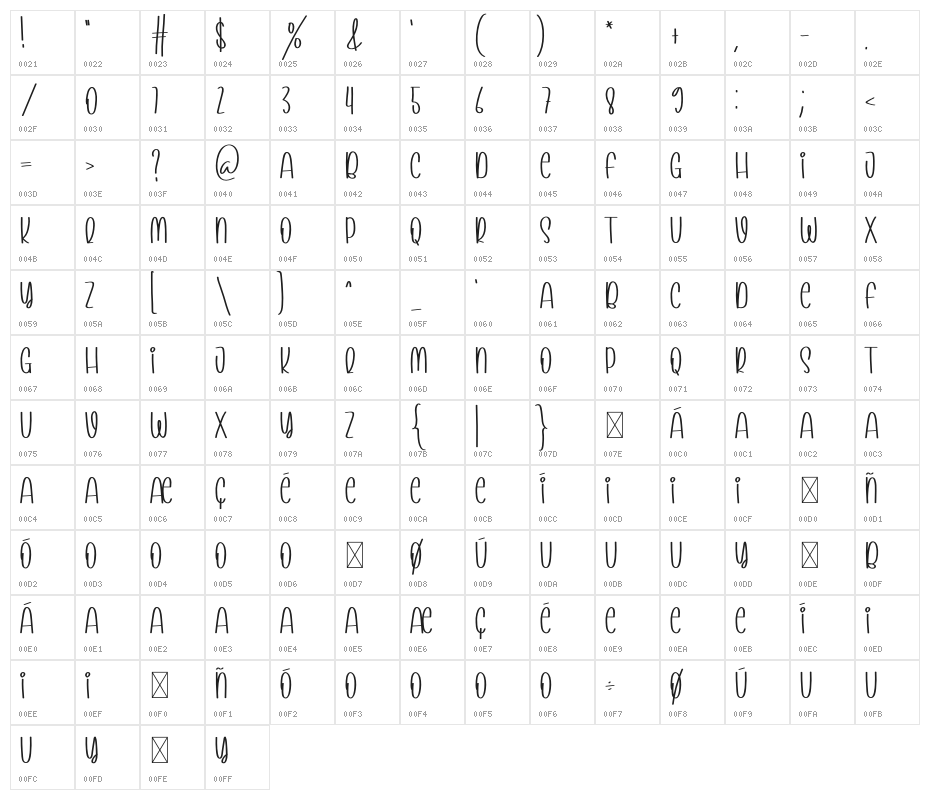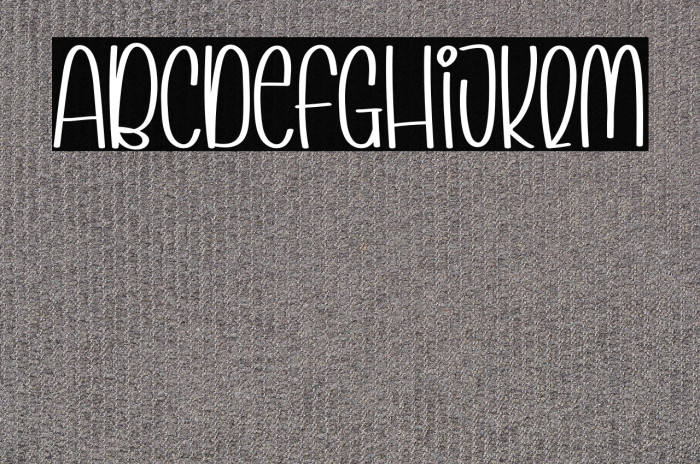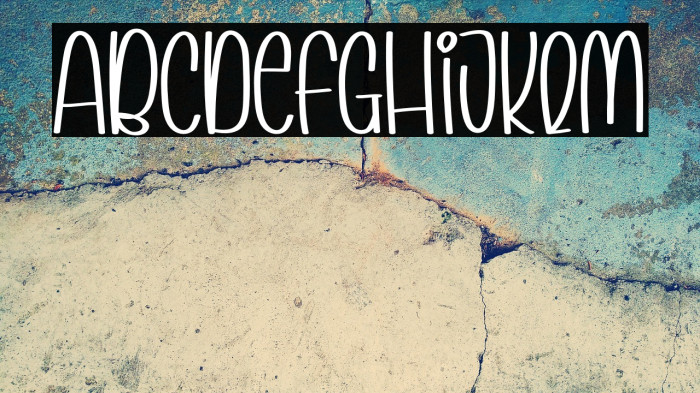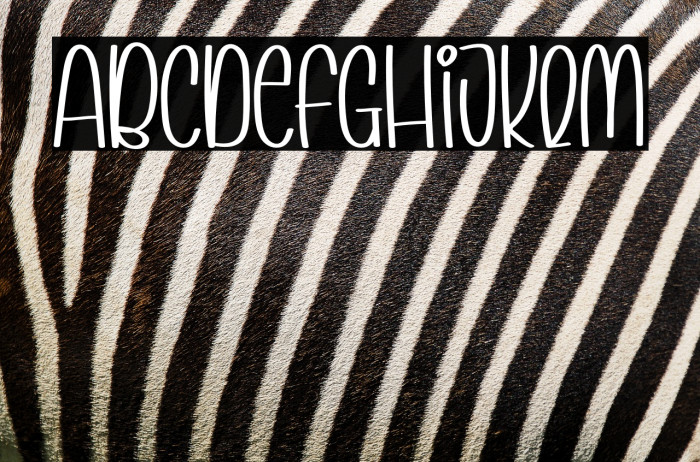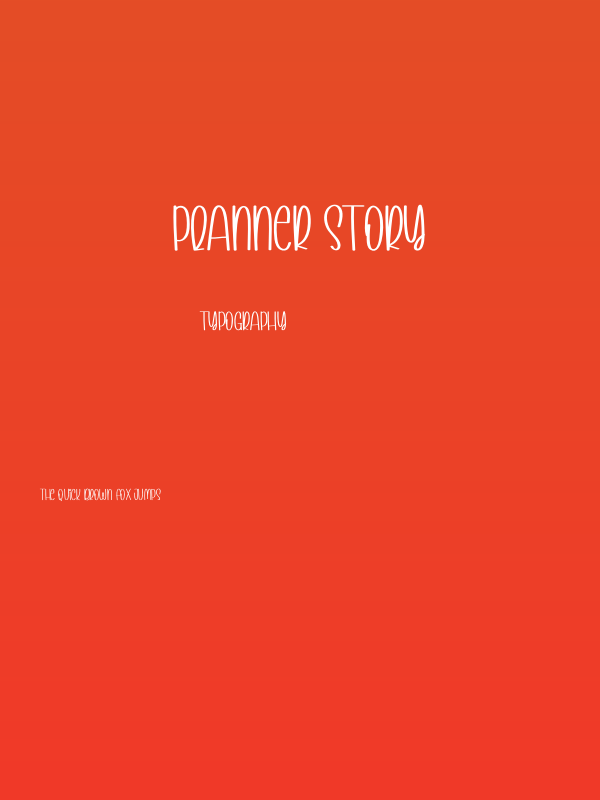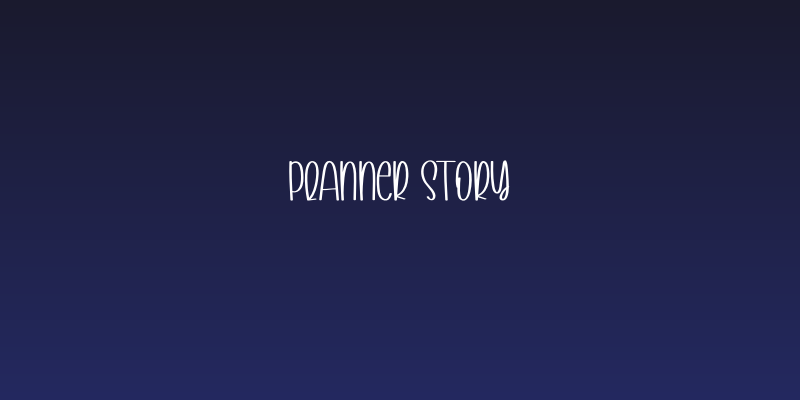
Planner Story Font
Planner Story Description
A tall, narrow handwritten font with playful, rounded strokes and consistent line thickness, giving it a casual and approachable feel. Letters are slightly irregular, enhancing the hand-drawn aesthetic.
| Overall Style | Casual, Playful, Modern |
| Use Case | Headlines, Quotes, Decorative text, Planners |
| Proposed Projects | Planners, journals, greeting cards, social media graphics, children's books, casual branding. |